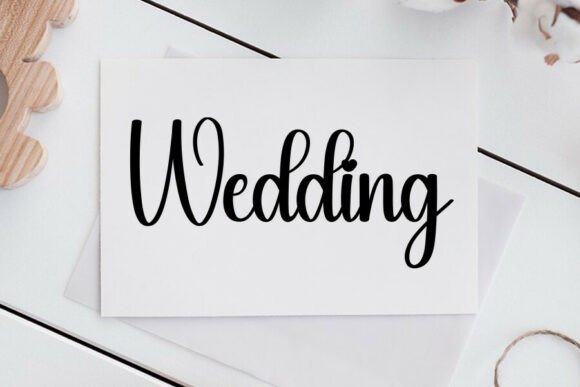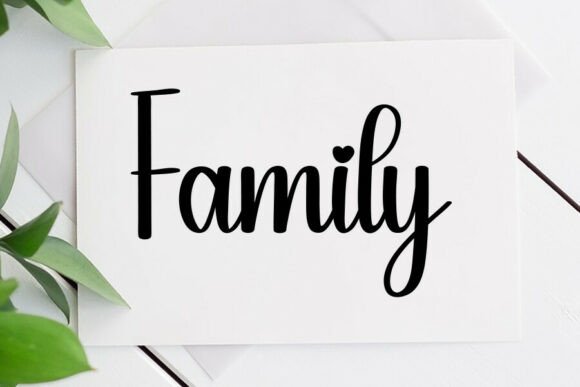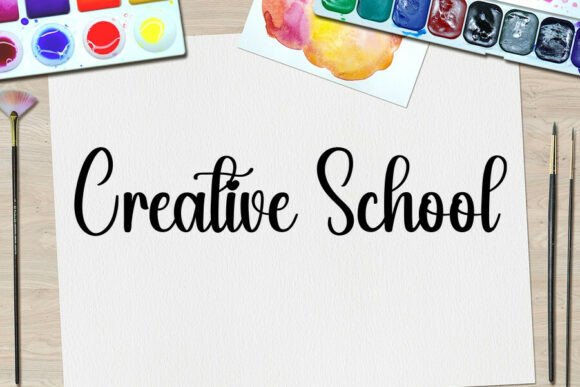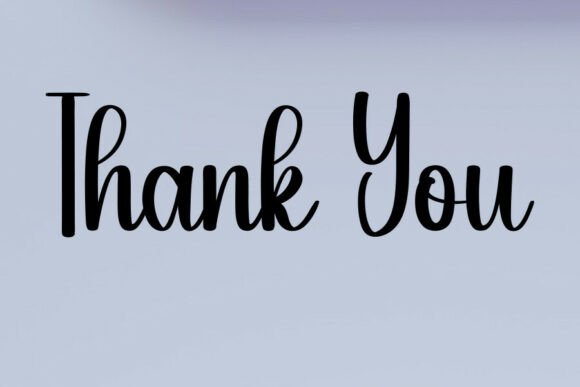
Introducing Banana Font: The Simple Handwritten Font for Your Creative Projects
Are you looking for a font that can add a touch of simplicity and naturalness to your designs? Look no further than Banana Font! This versatile handwritten font is perfect for a wide range of applications, from greeting cards to headlines, and is sure to become a staple in your design toolkit.
What is Banana Font?
Banana Font is a simple handwritten font that is designed to be easy to read and use. Its clean lines and natural flow make it perfect for creating a variety of designs, from casual to formal. Whether you’re creating a greeting card, a poster, or a social media graphic, Banana Font is a great choice.
Key Features of Banana Font
- Simple and Handwritten: Banana Font has a simple, handwritten feel that is perfect for creating designs that are approachable and friendly.
- Versatile: This font can be used for a wide range of applications, from greeting cards to headlines, and even body text.
- Easy to Read: Banana Font is designed to be easy to read, even at small sizes, making it perfect for use in a variety of designs.
- Natural Flow: The natural flow of Banana Font makes it perfect for creating designs that are organic and natural.
Uses for Banana Font
Banana Font is a versatile font that can be used for a wide range of applications. Here are a few ideas to get you started:
- Greeting Cards: Banana Font is perfect for creating greeting cards for special occasions like birthdays, weddings, and holidays.
- Headlines: Use Banana Font to create eye-catching headlines for your blog posts, articles, and social media graphics.
- Posters: Banana Font is a great choice for creating posters for events, promotions, and products.
- Social Media Graphics: Use Banana Font to create social media graphics that are approachable and friendly.
- Branding: Banana Font can be used to create a consistent brand identity for your business or organization.
Benefits of Using Banana Font
There are many benefits to using Banana Font in your designs. Here are a few:
- Unique Look: Banana Font has a unique look that will set your designs apart from the crowd.
- Easily Readable: Banana Font is designed to be easy to read, even at small sizes.
- Versatile: Banana Font can be used for a wide range of applications, from casual to formal.
- Time-Saving: Banana Font is a pre-designed font, which means you can save time and effort in your design process.
Tips for Using Banana Font
Here are a few tips for using Banana Font in your designs:
- Use it with Other Fonts: Banana Font can be paired with other fonts to create a unique and interesting look.
- Experiment with Sizes: Try using Banana Font in different sizes to create visual interest in your designs.
- Use it for Body Text: Banana Font can be used for body text, making it perfect for creating long-form content.
Banana Font is a simple handwritten font that is perfect for adding a touch of simplicity and naturalness to your designs. Its versatility and ease of use make it a great choice for a wide range of applications, from greeting cards to headlines. With its unique look and easily readable design, Banana Font is sure to become a staple in your design toolkit.